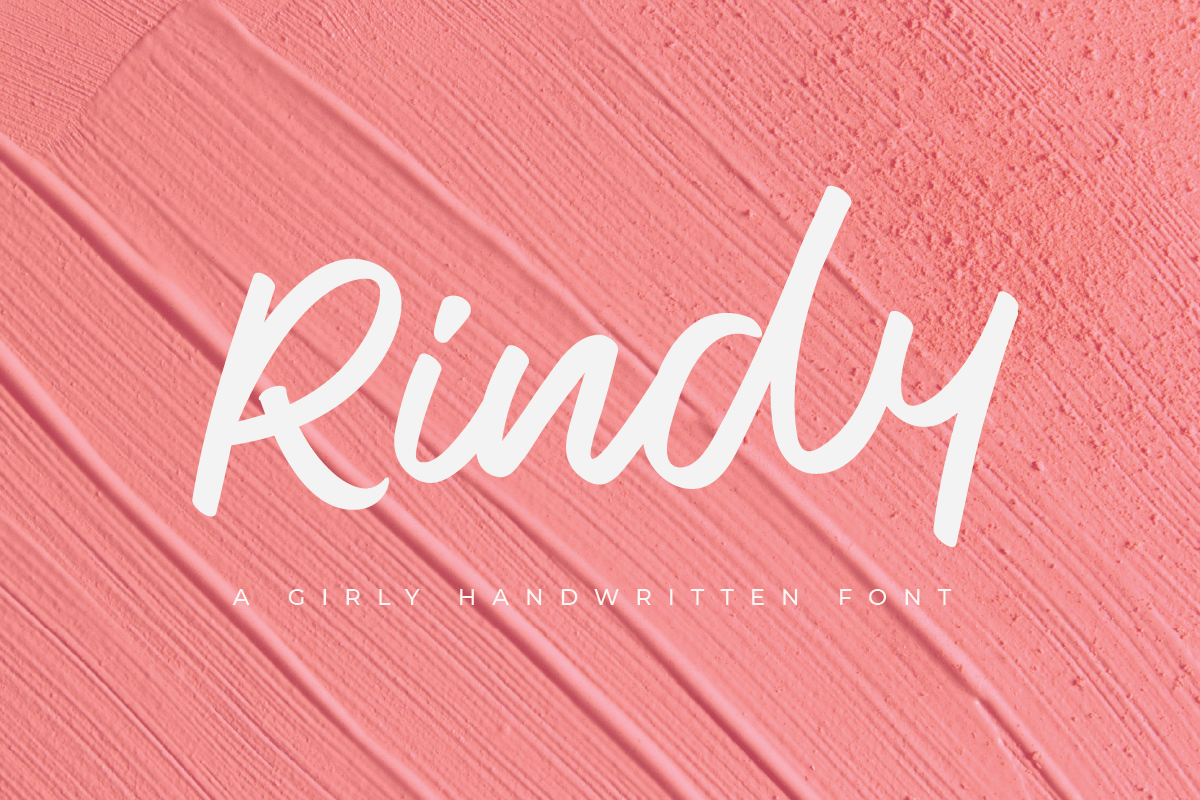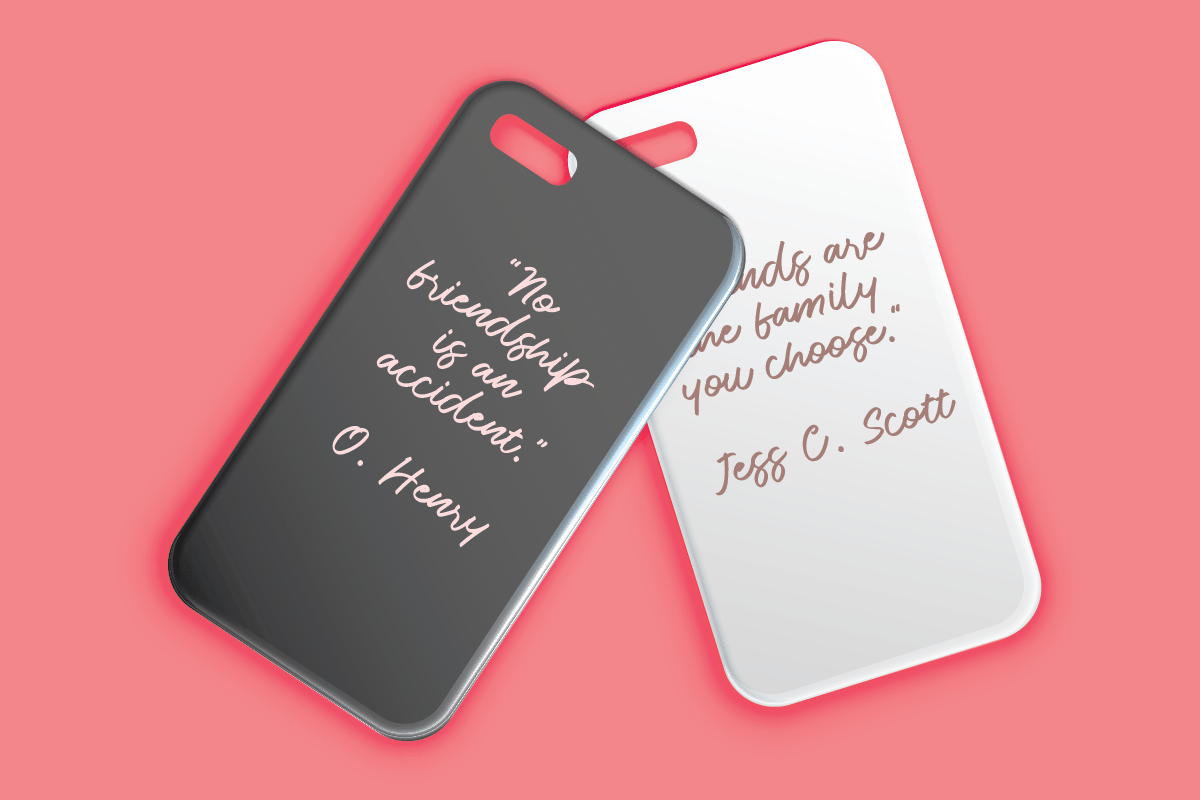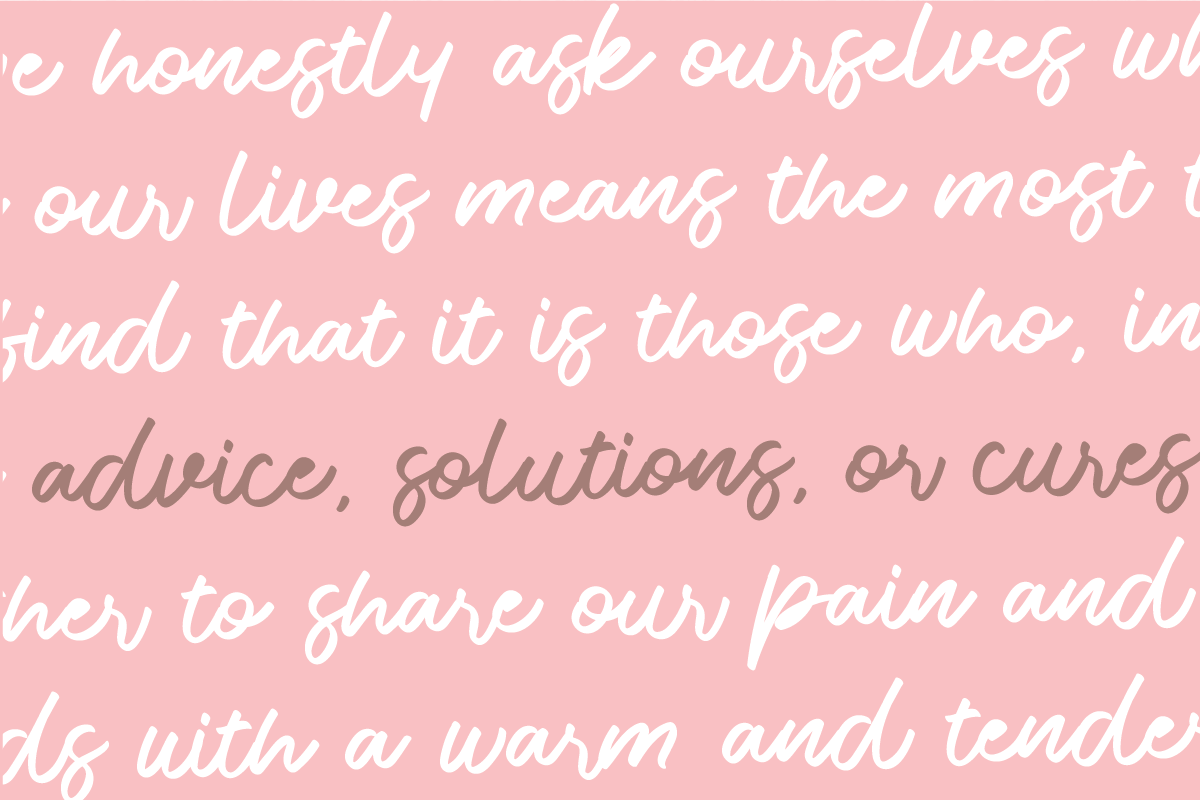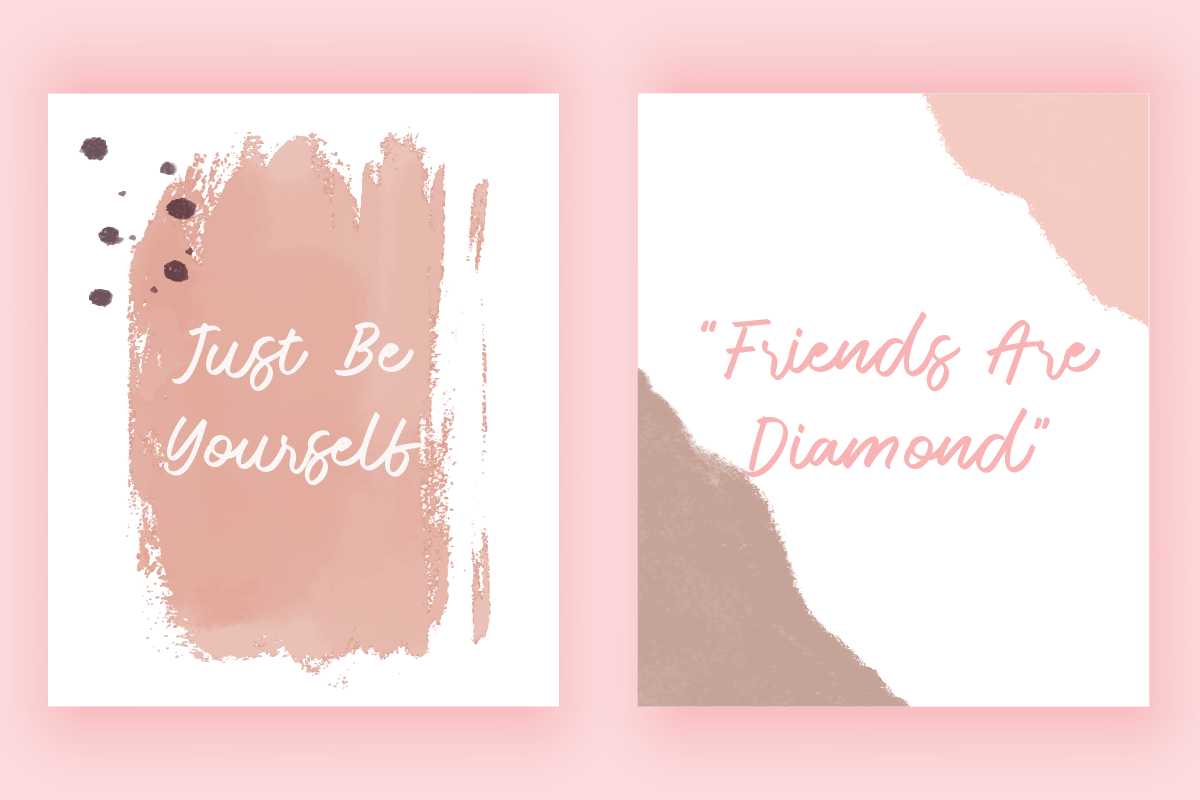
Rindy – Girly Handwritten Font
Rindy is a Girly Handwritten Font that’s perfect for Subtitle, Signature or Branding. This font specially crafted for your design projects such as logo, banner, flyer, website design, product packaging, merchandise, pillow print and so many more with easy to use but standing out results are so amazing.
Enjoy to Design any your needs with standing out, unique, and authentic feels.